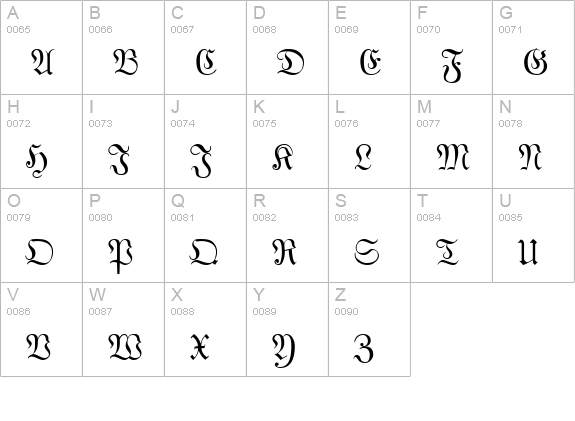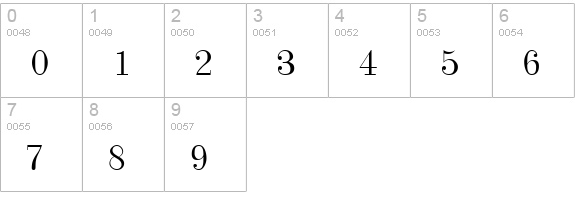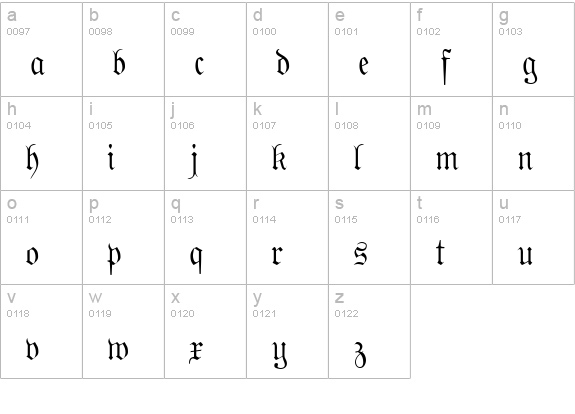
Phraxtured Plain Font Details
Introducing Phraxtured Plain, a captivating and versatile font that is sure to make a lasting impression. With its unique and edgy design, this font effortlessly combines modernity with a touch of rebellion. The jagged edges and fractured appearance give Phraxtured Plain a sense of ruggedness, making it perfect for projects that require a bold and daring aesthetic. Phraxtured Plain is not only visually striking but also highly legible, ensuring that your message is conveyed with clarity and impact. Whether you're designing a logo, creating eye-catching headlines, or crafting a memorable poster, this font will effortlessly elevate your project to new heights. And the best part? Phraxtured Plain is absolutely free! That's right, this incredible font is freely available to download at FontsMarket.com. Say goodbye to expensive licensing fees and hello to unlimited creative possibilities. It's never been easier to add a touch of boldness and personality to your designs. So why wait? Unleash your creativity and download Phraxtured Plain today. Whether you're a professional designer or a passionate hobbyist, this font is sure to become your go-to choice for all your design needs. Embrace the freedom of creativity and let Phraxtured Plain guide you on a journey of endless design possibilities.